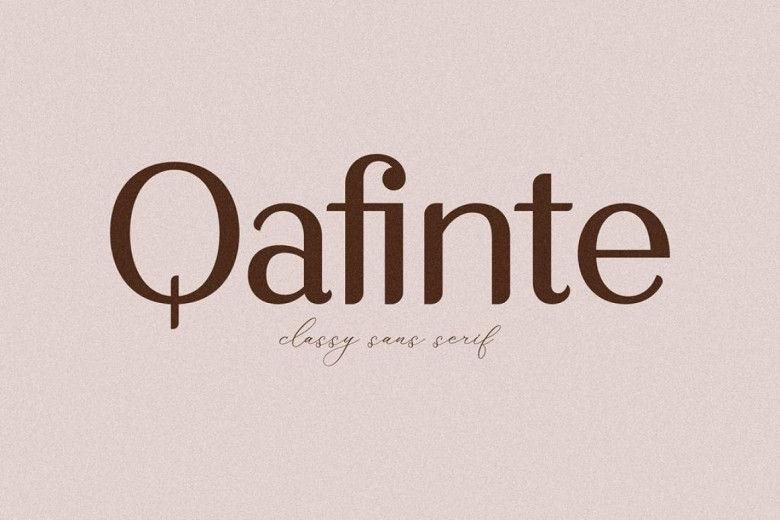
Qafinte Font
Qafinte is a classic & modern Sans Serif typography. With a style distinct & modern look. to create your elegant and classy typographic designs or A staple for your brand!
Qafinte Sans Serif Font